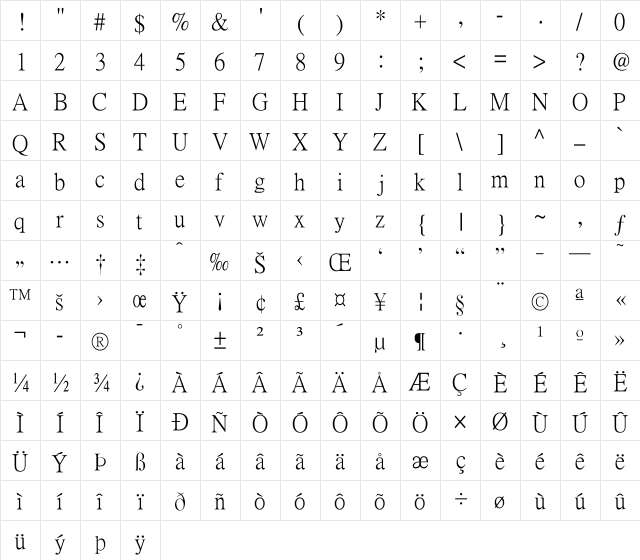
PMingLiU Regular
Design Context for PMingLiU Typeface
PMingLiU takes a measured approach to typography — its balanced proportions and neutral character make it a reliable workhorse for both digital and print work.